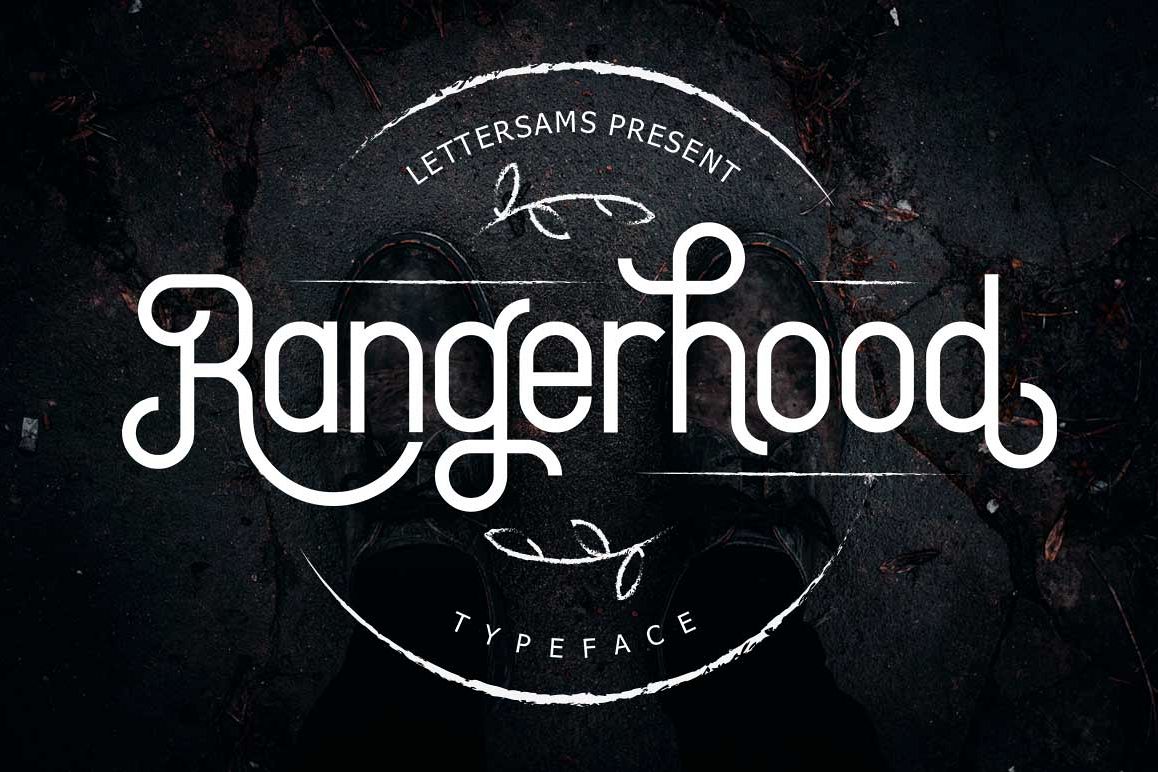
Rangerhood
Rangerhood offers a wide range of options for creating logos, titles and titles. It is suitable for books, editorials, packaging, advertising, brand imaging and more. Modern sans serif fonts with a vintage touch, giving users the freedom to make compositions.
Rangerhood includes Collection of Uppercase, Stylistic, Latin Based Language Support, Numbers and Punctuation. Set Stylistic is available in Lowercase to Uppercase.